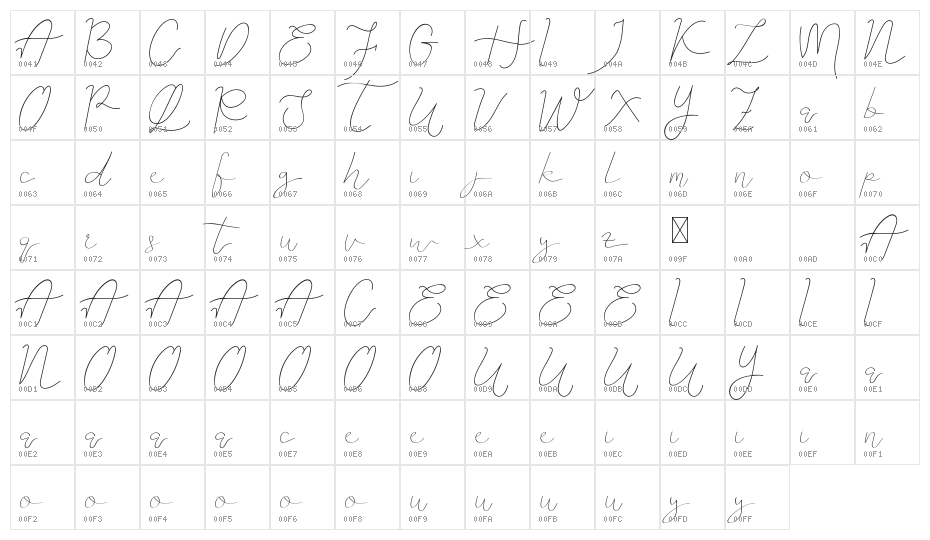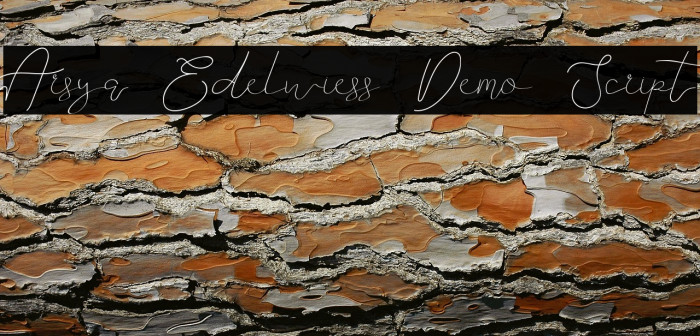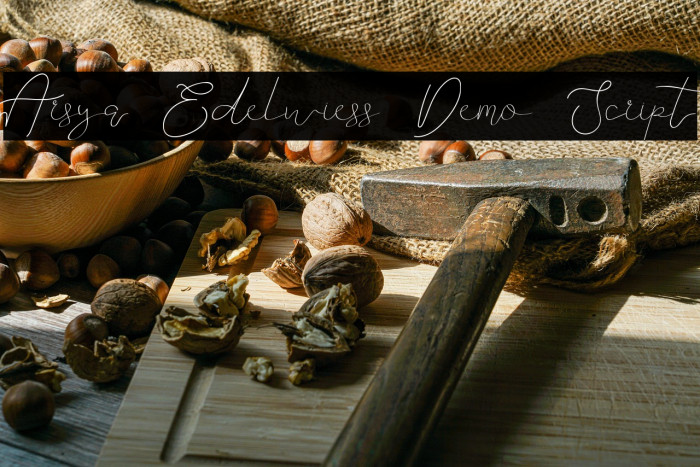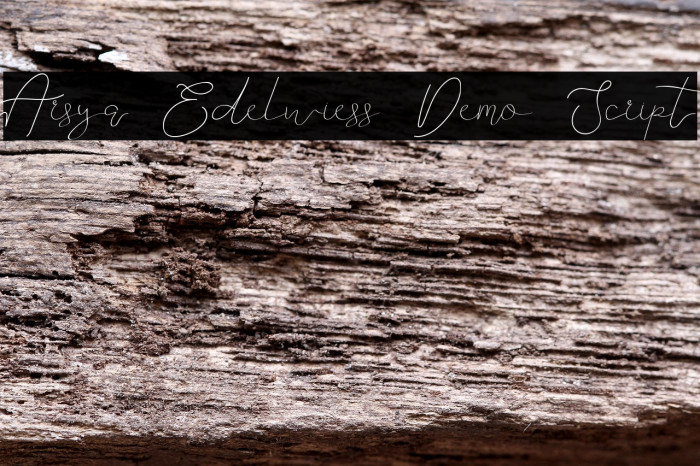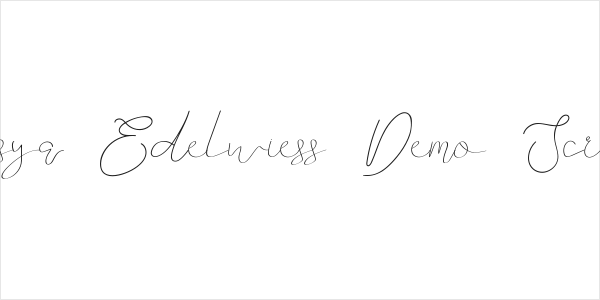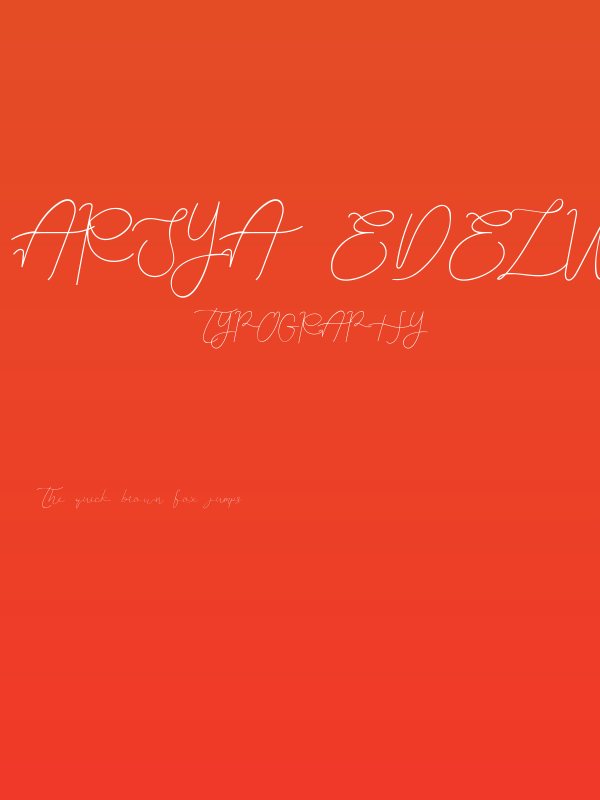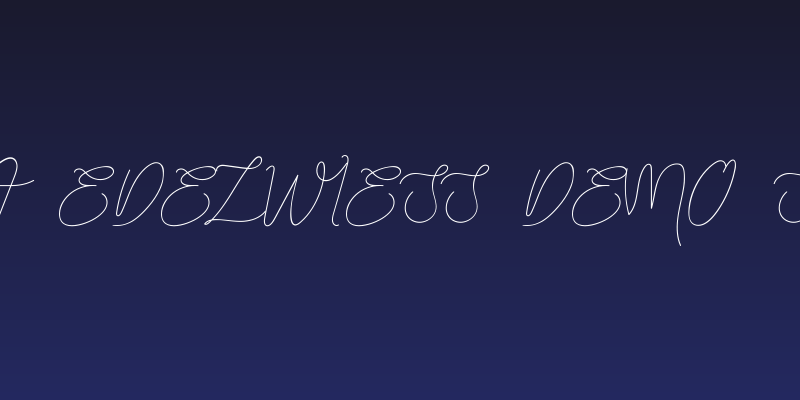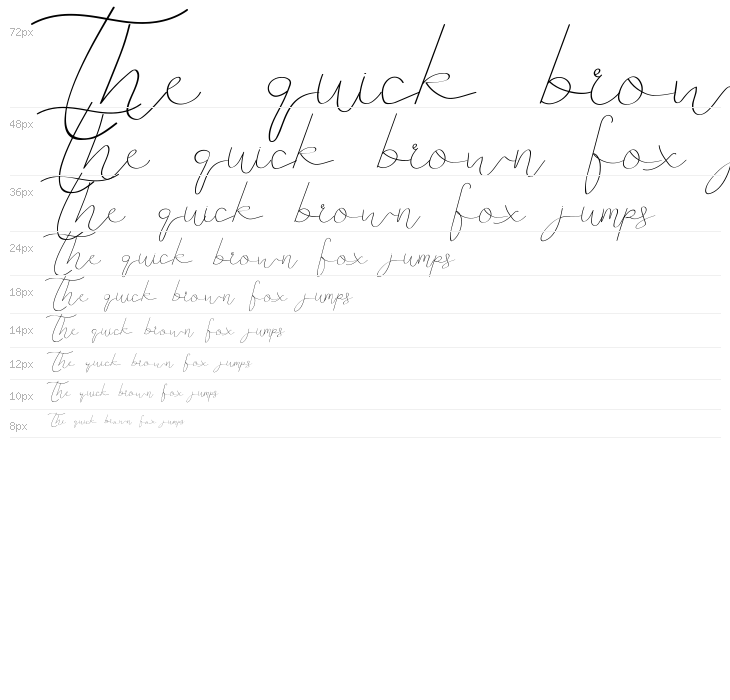
Arsya Edelwiess Demo Script Font
Arsya Edelwiess Demo Script Description
This font features an elegant and flowing script style, characterized by its thin, delicate lines and graceful curves. The letters are interconnected, creating a seamless and fluid appearance that mimics natural handwriting. The uppercase letters exhibit a sophisticated flair with elongated strokes, while the lowercase letters maintain a consistent rhythm and balance. The overall design exudes a sense of refinement and artistry, making it suitable for projects that require a touch of elegance and personal expression.
| Overall Style | Elegant, Artistic |
| Proposed Projects | Ideal for wedding invitations, personal branding, elegant stationery, and artistic projects. |